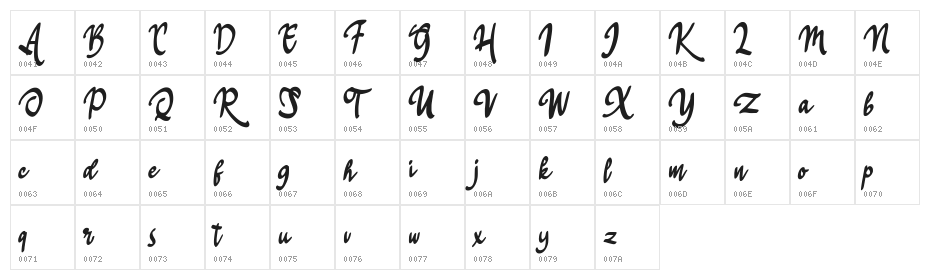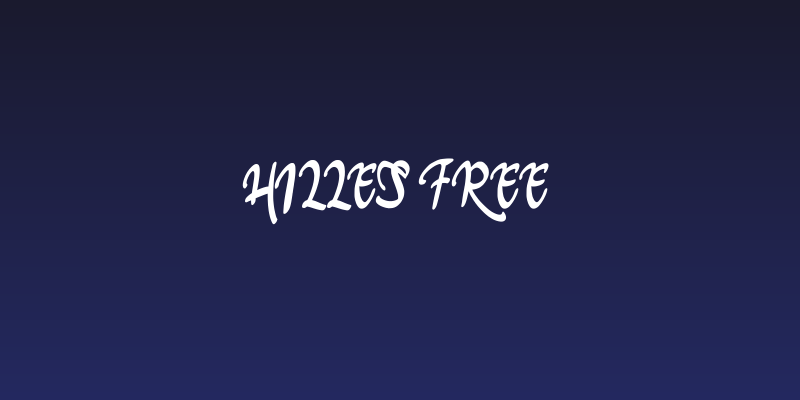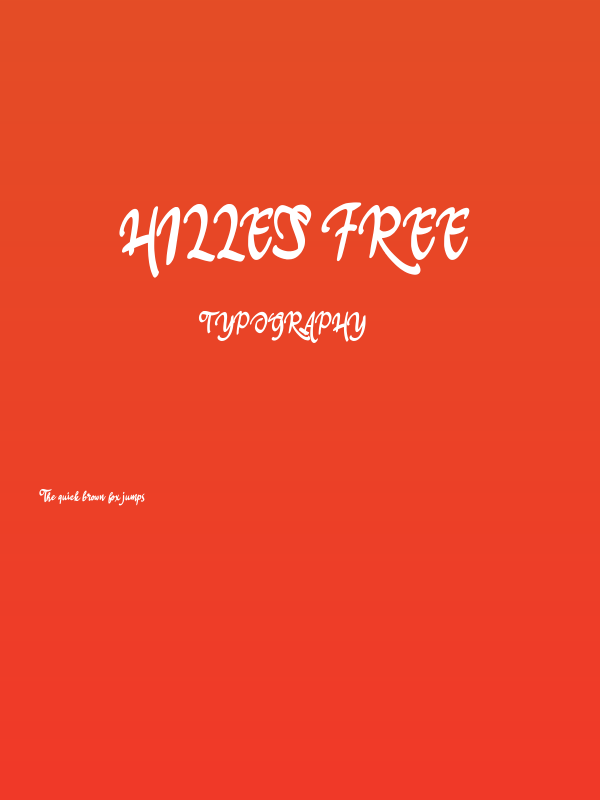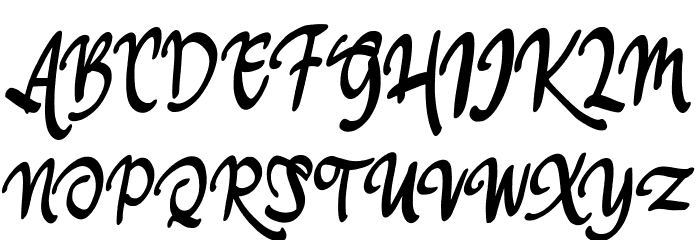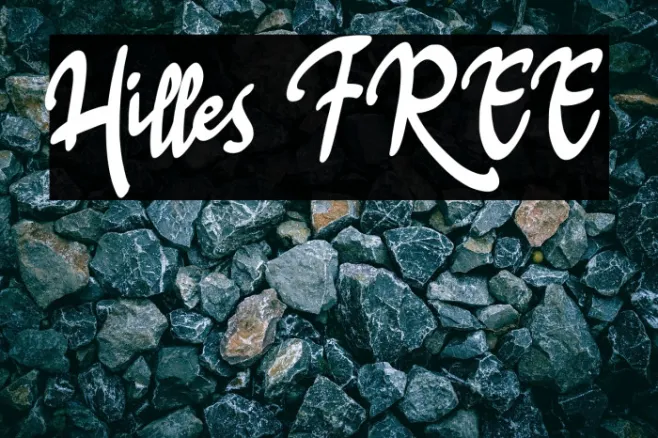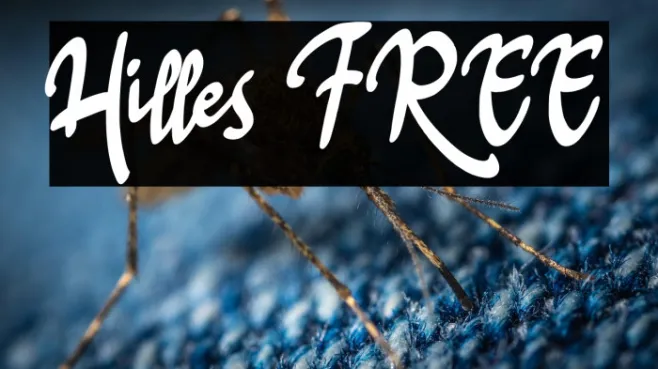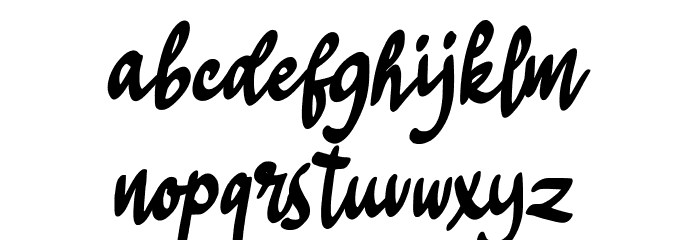
Hilles FREE Font
Hilles FREE Description
This font features a bold, flowing script style that exudes elegance and creativity. The characters are interconnected with smooth, sweeping curves, giving it a dynamic and fluid appearance. The uppercase letters are particularly ornate, with exaggerated loops and flourishes that add a touch of sophistication. The lowercase letters maintain a consistent flow, making the text easy to read while still retaining its artistic flair. The numbers and special characters are designed to match the overall style, ensuring a cohesive look across all text elements.
| Proposed Projects | Ideal for wedding invitations, branding projects, and elegant logo designs. |